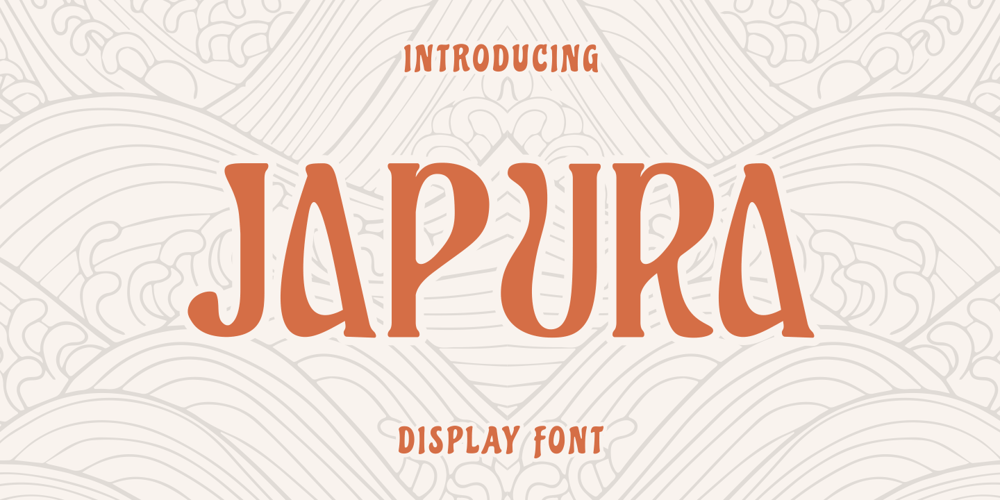
Japura Font Family was designed by Putra Novembria Candra Kusuma and published by Putracetol. Japura contains 1 styles and family package options. Japura – Modern Display Typeface for Versatile DesignsJapura is a unique and modern display typeface that will give your designs a classic, fun, and trendy impression. This font is perfect for display purposes such as album covers, posters, labels, t-shirts, signage, quotes, logos, and much more. With its elegant design inspired by vintage typefaces and posters, Japura comes with several variations such as ligatures, making it stand out from other fonts.Japura supports multiple languages, and its alternative characters are divided into several Open Type features, including Swash, Stylistic Sets, Stylistic Alternates, Contextual Alternates, and Ligatures. You can access these features using Open Type savvy programs such as Adobe Illustrator, Adobe InDesign, Adobe Photoshop Corel Draw X version, and Microsoft Word.In the Zip package, you will find Japura in otf, ttf, and woff formats. It comes with uppercase and lowercase letters, OpenType Alternates and Ligatures, numbers, punctuation, and symbols. With its multilingual support, Japura is perfect for any design project that requires a unique and modern display typeface.Upgrade your design game with Japura, the perfect font for a wide range of businesses and projects.Meta Description: Introducing Japura, a unique and modern display typeface perfect for album covers, posters, labels, t-shirts, signage, quotes, logos, and more. With multilingual support and Open Type features, upgrade your designs with Japura today.